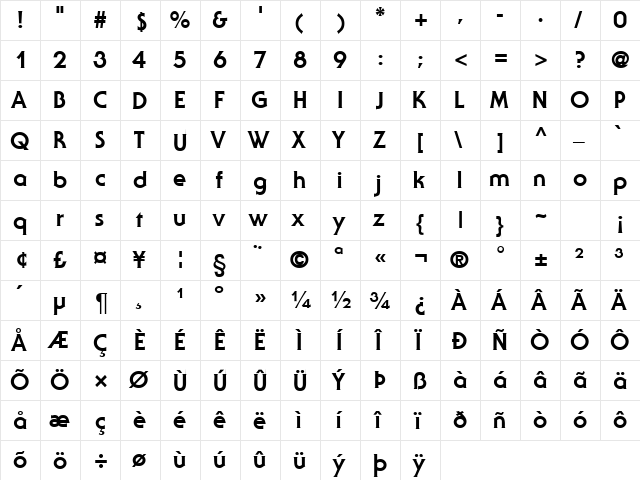
JennyExtDB Bold
Design Context for JennyExtDB Typeface
JennyExtDB offers clean, dependable letterforms without strong stylistic allegiance, making it a practical choice for designers who need flexibility. The heavy weight commands attention and anchors typographic hierarchies.